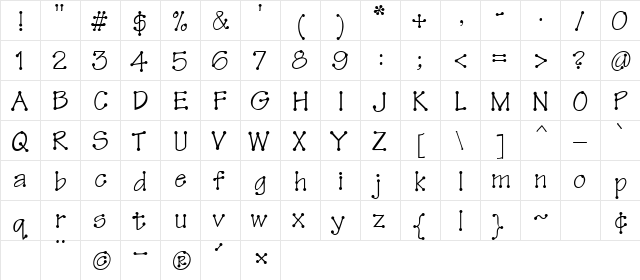
TinkerToy Regular
Design Context for TinkerToy Typeface
TinkerToy is a composed and adaptable typeface that performs quietly and consistently across a wide range of design contexts.